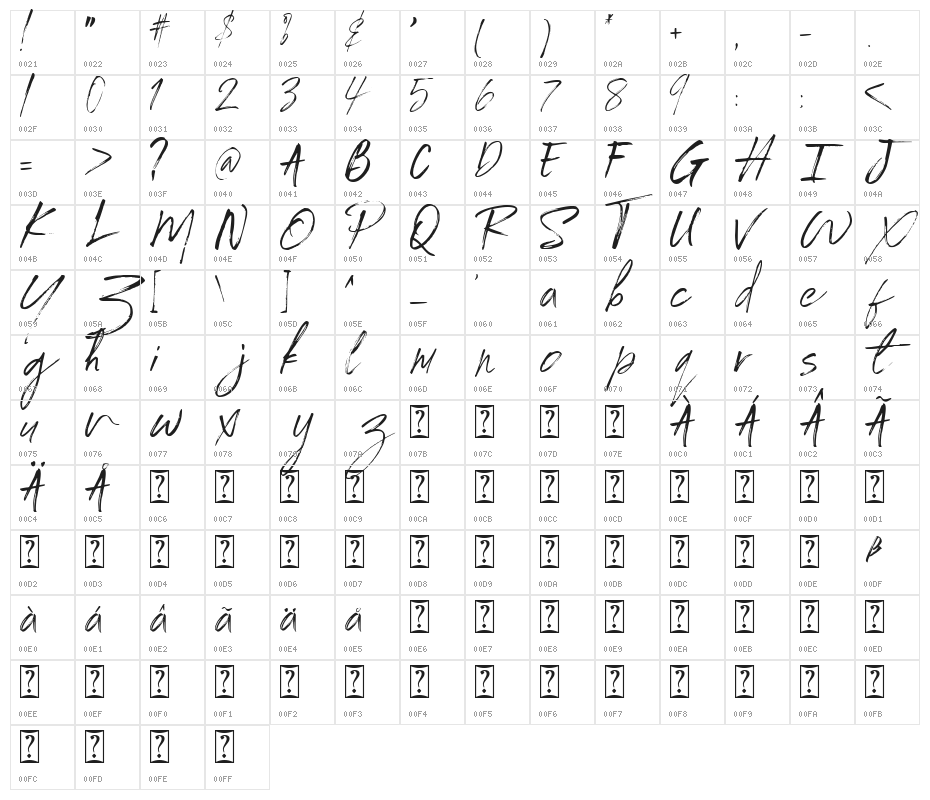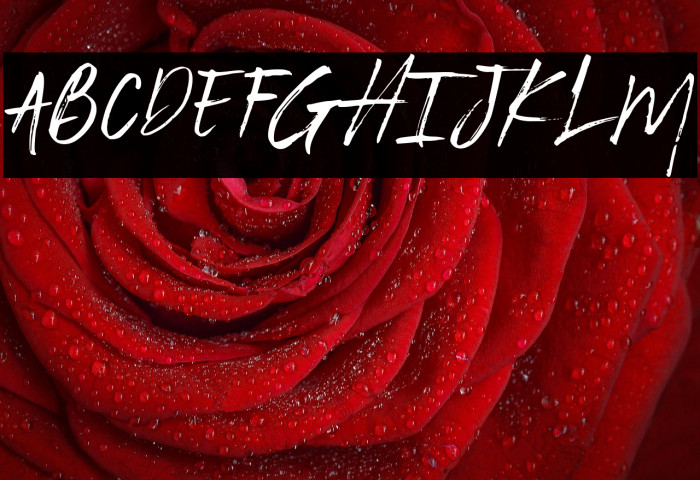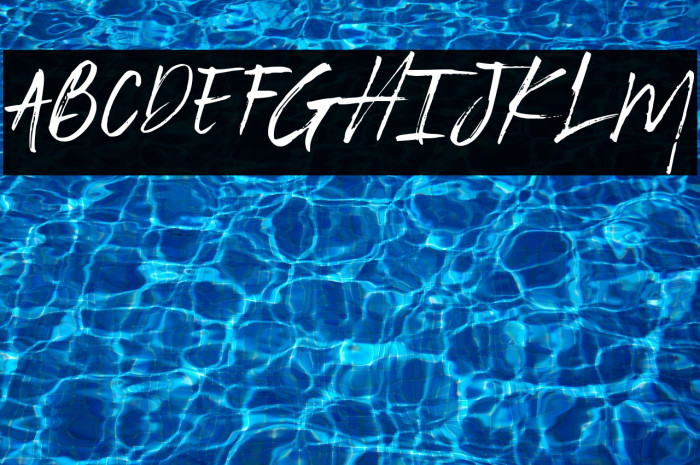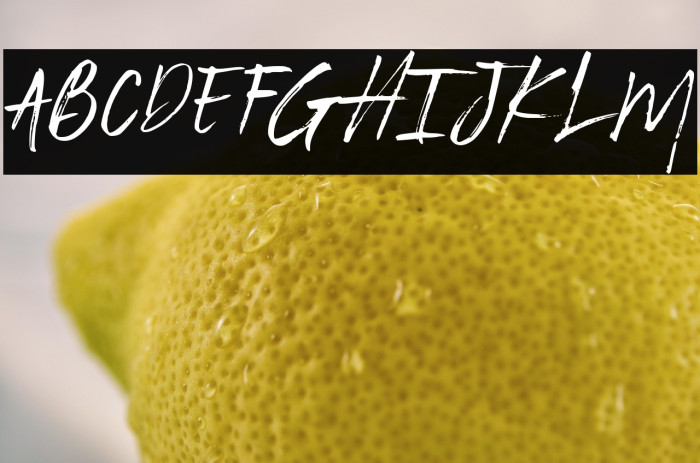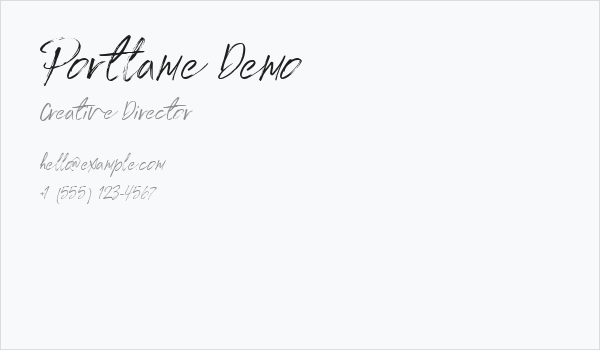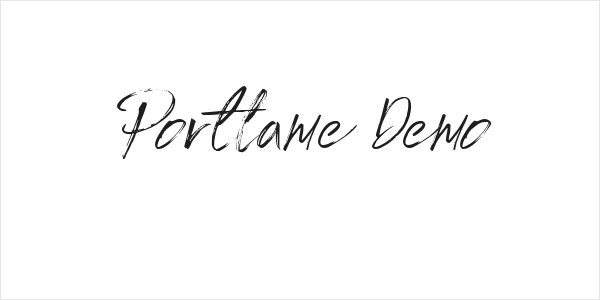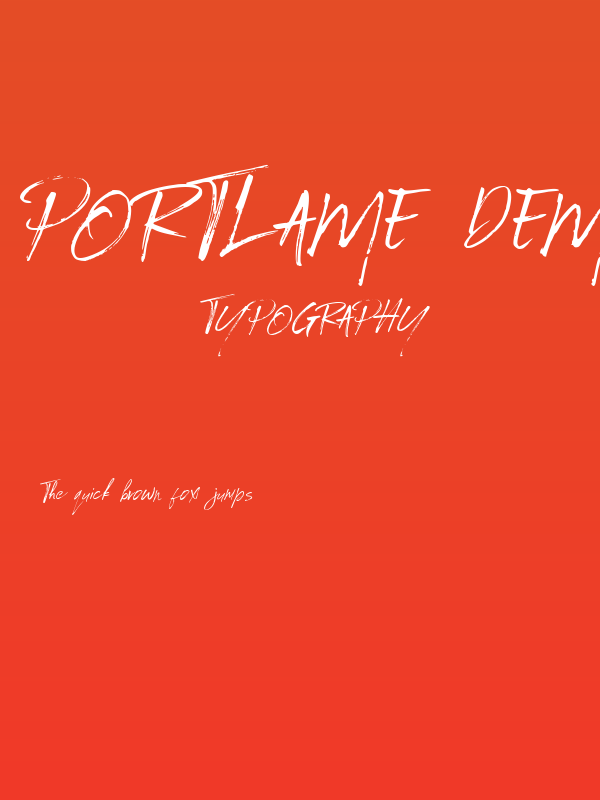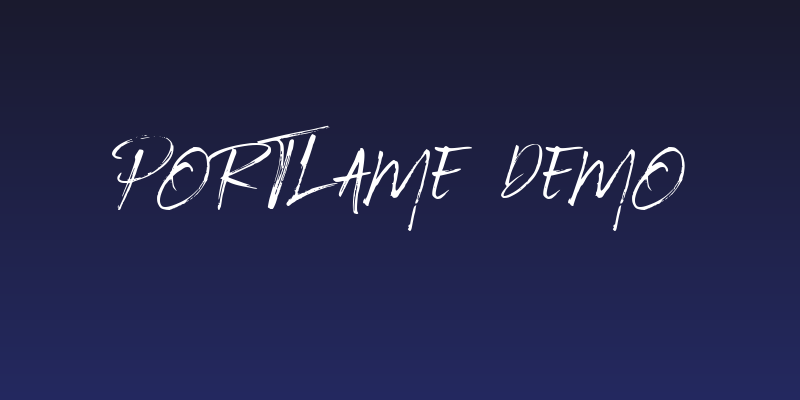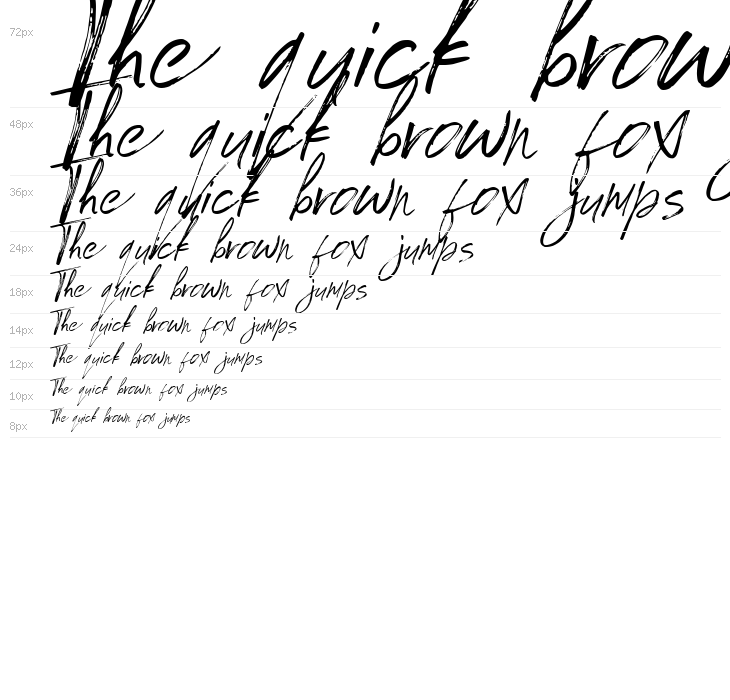
Portlame Demo Font
Portlame Demo Description
This font exhibits a dynamic and expressive handwritten style, characterized by its fluid and energetic strokes. The letters are crafted with a sense of movement and spontaneity, giving it a lively and artistic appearance. The uppercase and lowercase letters maintain a consistent style, with varying stroke widths that add to the font's organic feel. The numerals and special characters are equally expressive, integrating seamlessly with the overall design. This font's unique personality makes it ideal for creative projects that require a personal touch.
| Proposed Projects | Ideal for artistic projects, personal branding, invitations, and creative posters. |